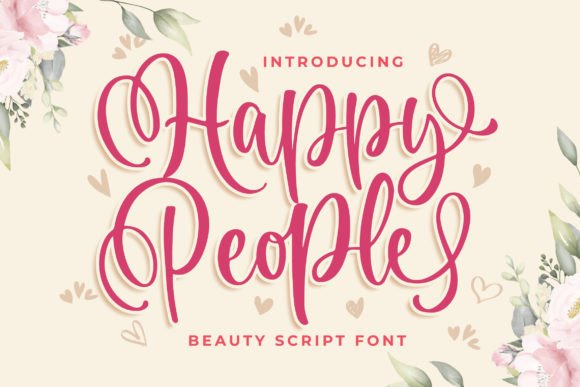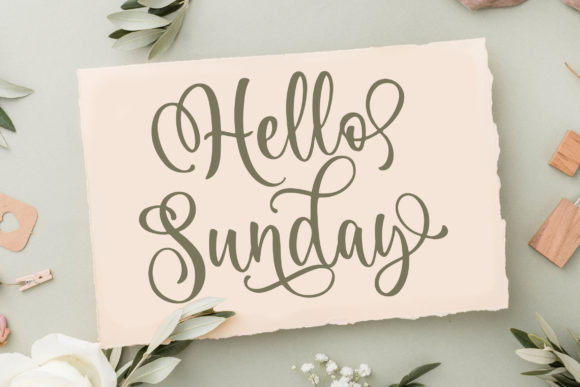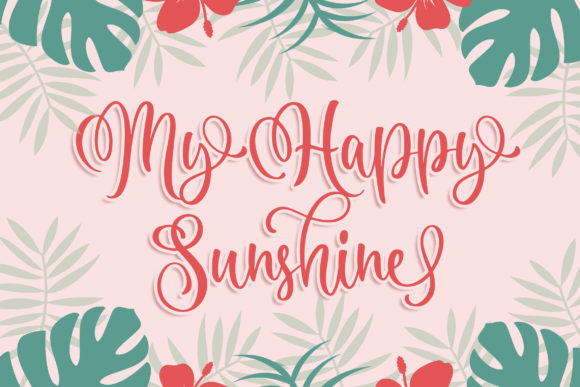
Happy People Font
Happy People FontHappy People is a beautiful and flowing handwritten font.It looks beautiful on a variety of designs requiring a personalized style, such as wedding invitations, thank you cards, weddings, greeting cards, logos and so on.